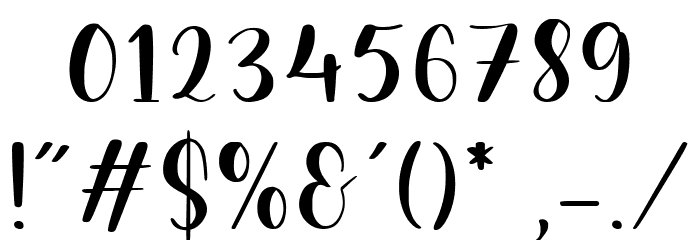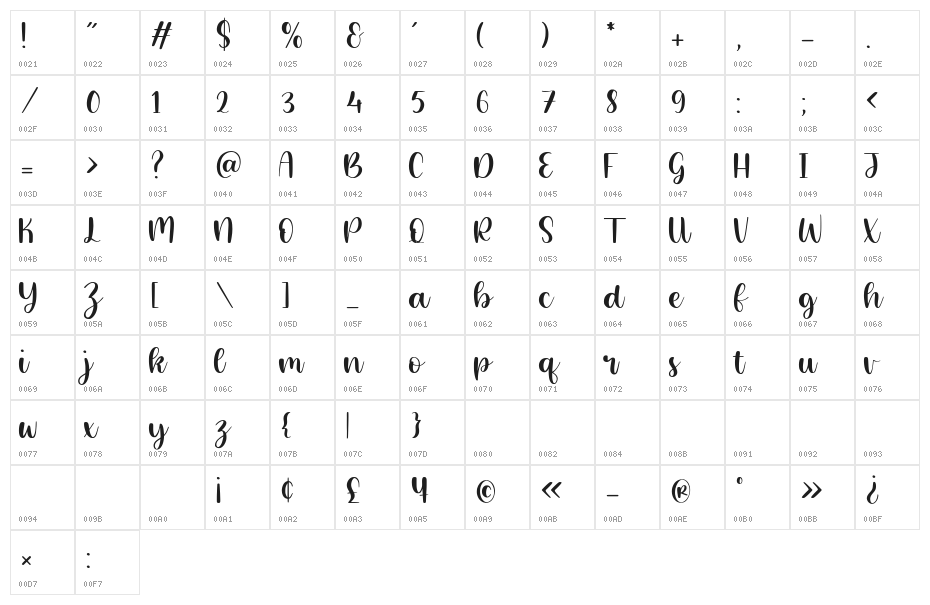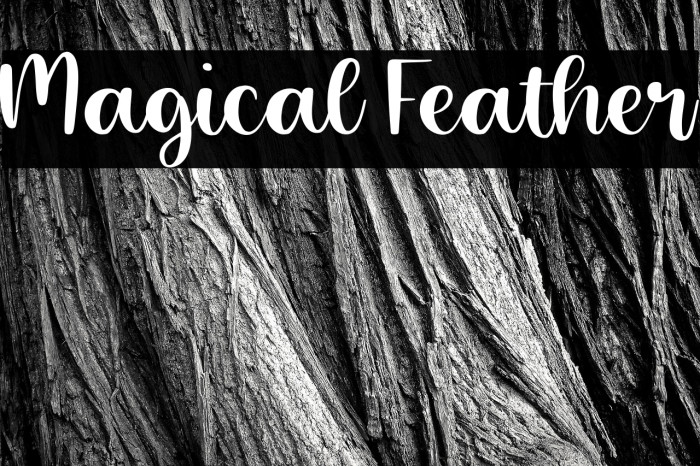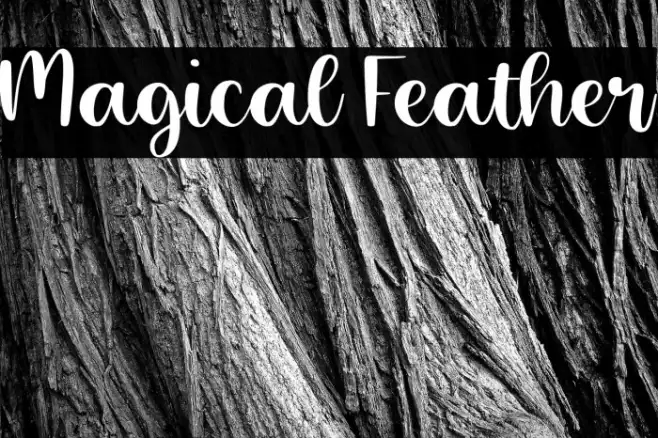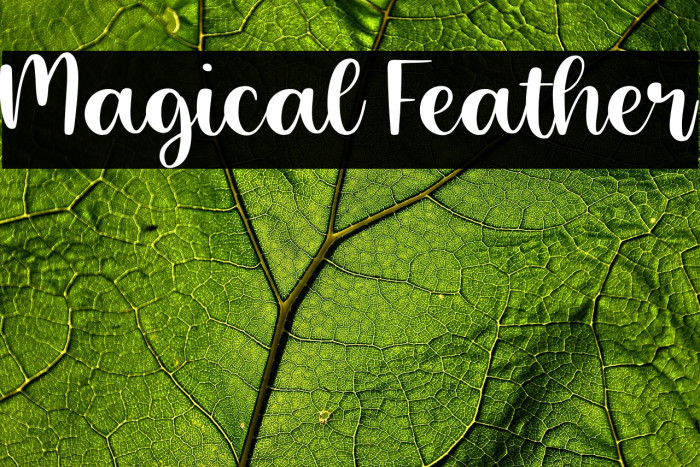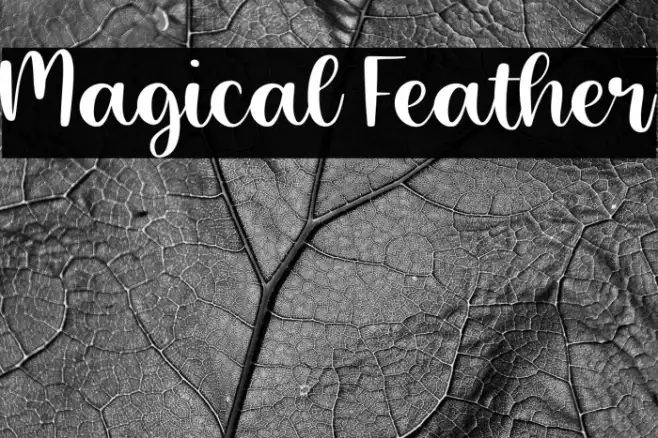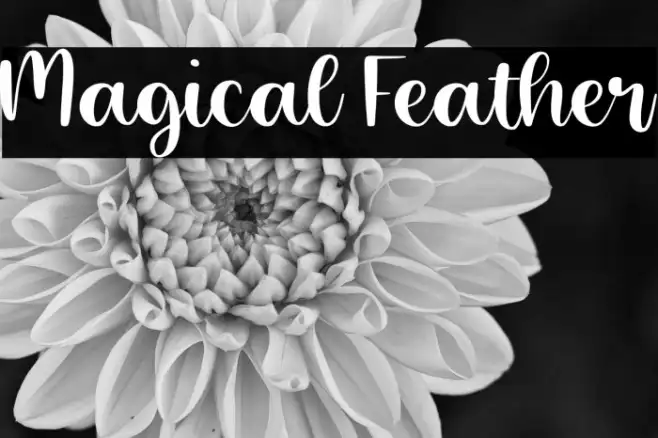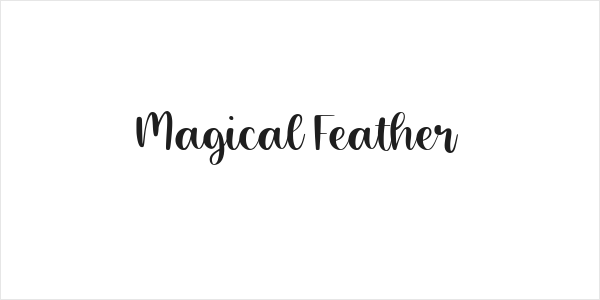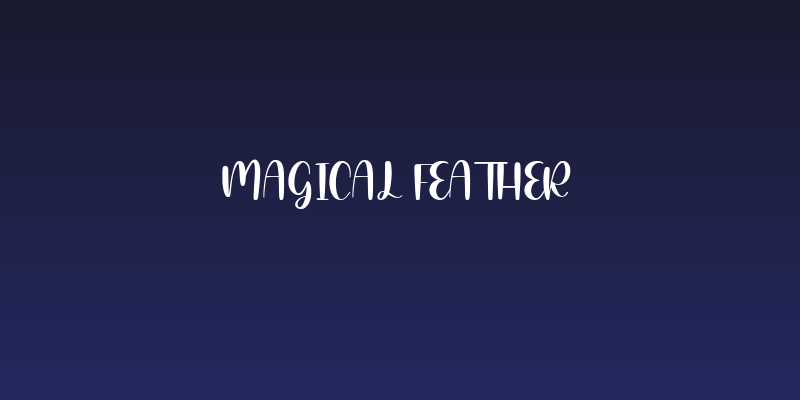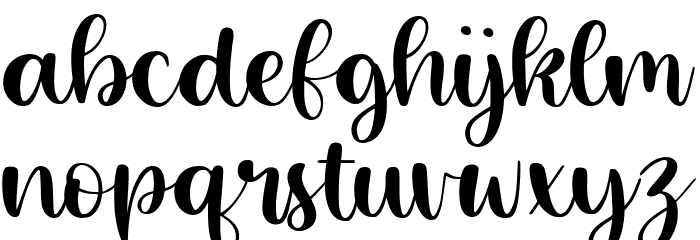
Magical Feather Font
Magical Feather Description
This font features a whimsical, flowing script style that exudes a sense of elegance and playfulness. The characters are crafted with smooth, curving lines that create a sense of motion and fluidity. The uppercase letters are bold and prominent, while the lowercase letters maintain a consistent, graceful flow. The numerals are clear and distinct, matching the overall style of the font. Special characters are integrated seamlessly, maintaining the font's cohesive aesthetic. The font's design is both decorative and functional, making it suitable for a variety of creative projects.
| Use Case | Logos, Invitations, Decorative Text |
| Proposed Projects | Ideal for wedding invitations, greeting cards, branding, and decorative signage. |